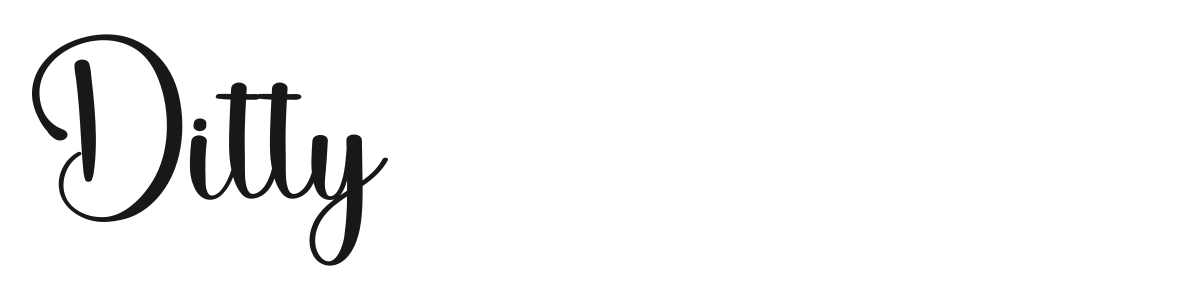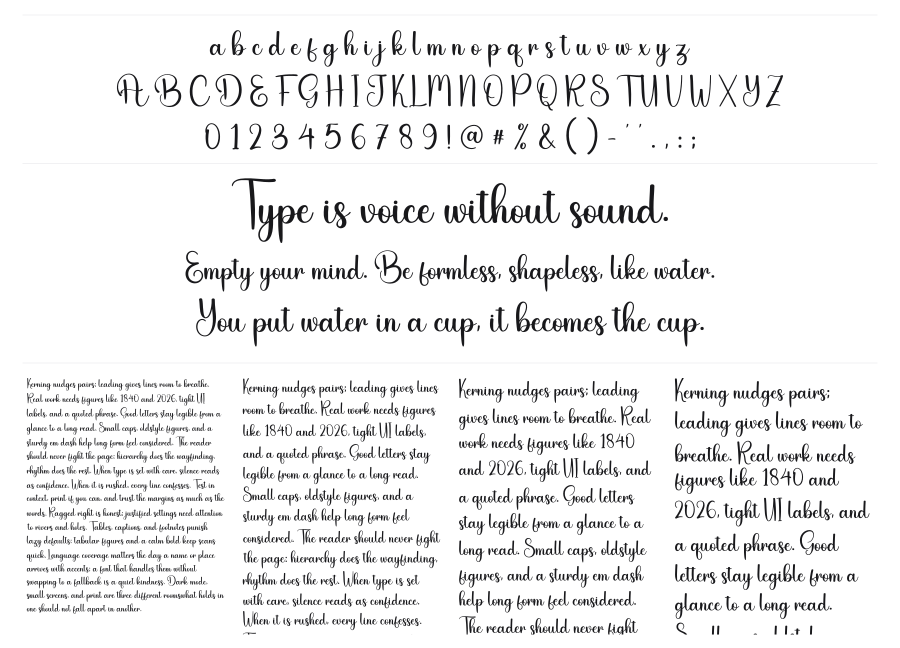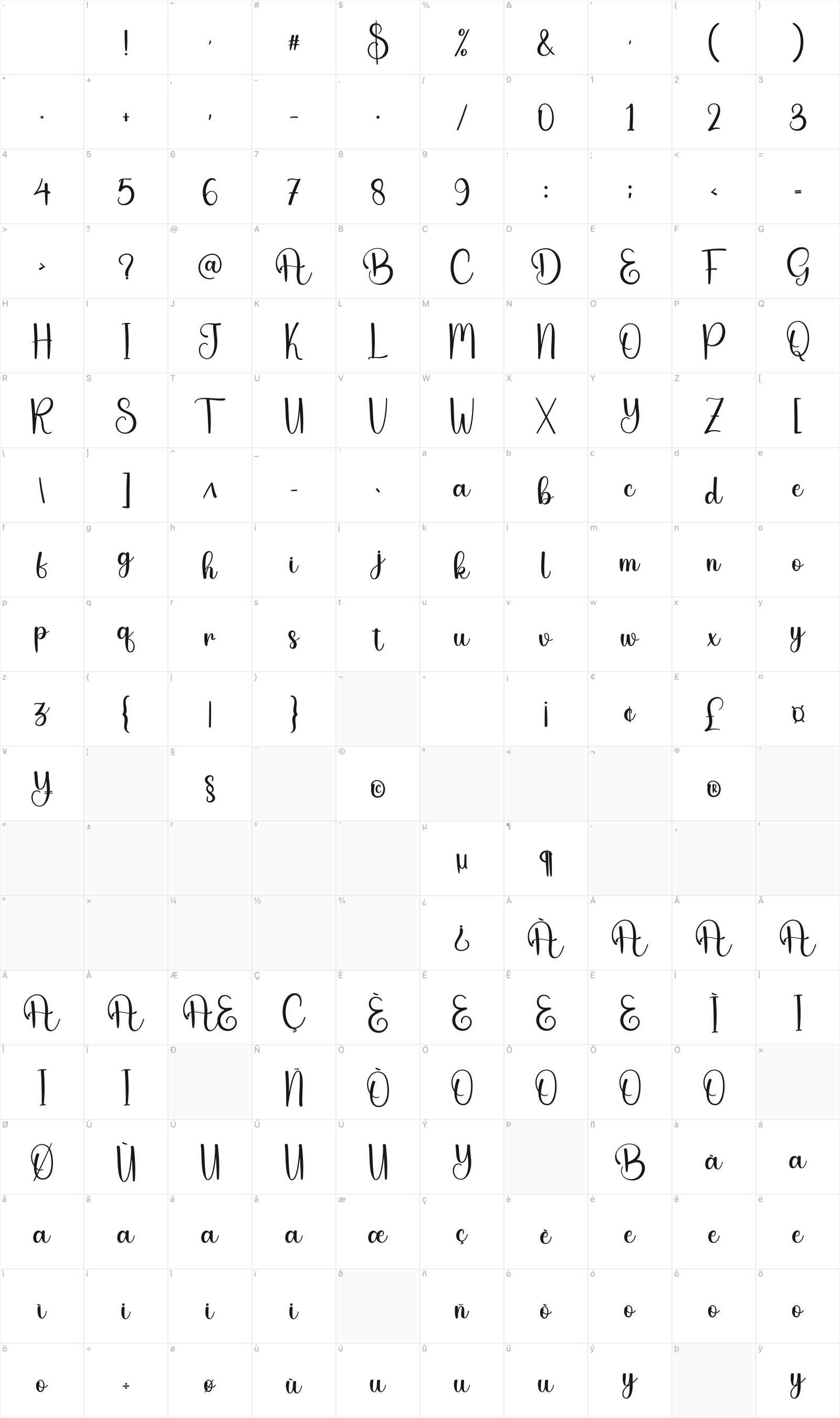
Ditty
by Harlek Studio
Ditty is a casual connected script with a warm, handwritten personality and smooth flowing strokes. The bouncy rhythm and looped terminals give it an approachable, artisan feel without feeling overly formal. It suits branding, packaging, and display work where personality matters.